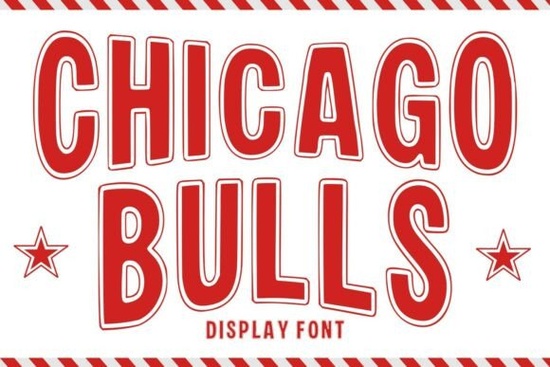
The Chicago Bulls Font is a standout choice for anyone looking to add a dynamic, sports-inspired flair to their design projects. This bold and energetic display typeface draws inspiration from classic sports lettering, varsity aesthetics, and vintage athletic branding. Whether you're working on t-shirt designs, event posters, or social media graphics, this font brings a confident and eye-catching presence that demands attention.
Designed with strong character shapes and playful outlines, the Chicago Bulls Font balances readability with a fun, approachable personality. Its thick strokes and outlined details make it ideal for large-scale applications where clarity and impact are essential. The font works well in both modern and retro-inspired designs, making it a versatile tool for a wide range of creative uses.
For designers and crafters, this font offers a unique way to express energy and movement in their work. It’s especially effective for sports-themed projects, team merchandise, and school apparel. If you're creating content for basketball-related themes, varsity projects, or youth events, the Chicago Bulls Font can help you achieve a professional yet playful look.
Why Choose the Chicago Bulls Font?
The Chicago Bulls Font stands out for its ability to combine strength with creativity. Unlike more traditional fonts, it adds a sense of excitement and motion that can elevate any design. Its clean yet bold style makes it suitable for a variety of applications, from logos and branding materials to packaging and stickers.
If you’re a print-on-demand seller or small business owner, this font can help you create eye-catching products that stand out in a competitive market. It’s also great for Cricut and Silhouette projects, where the detailed outlines and strong shapes translate well into physical designs. For hobbyists and DIY enthusiasts, the font offers a fun way to bring sports-inspired themes to life.
One of the best things about the Chicago Bulls Font is its versatility. You can use it for headlines, banners, and promotional materials where boldness is key. It pairs well with other fonts that have a similar energetic vibe, such as Bloby Crush Font or Tropic Sundae Font, allowing you to create layered and dynamic layouts.
When using the font, consider the size and context. At larger sizes, the thick strokes and outlined details really come to life, making it perfect for posters and signage. For smaller applications, like social media headers or product labels, the font still maintains its impact without overwhelming the design.
Whether you're designing for a sports team, a school event, or a personal project, the Chicago Bulls Font provides a powerful and expressive way to communicate energy and style. With its bold character and versatile application, it’s a valuable addition to any designer’s toolkit.